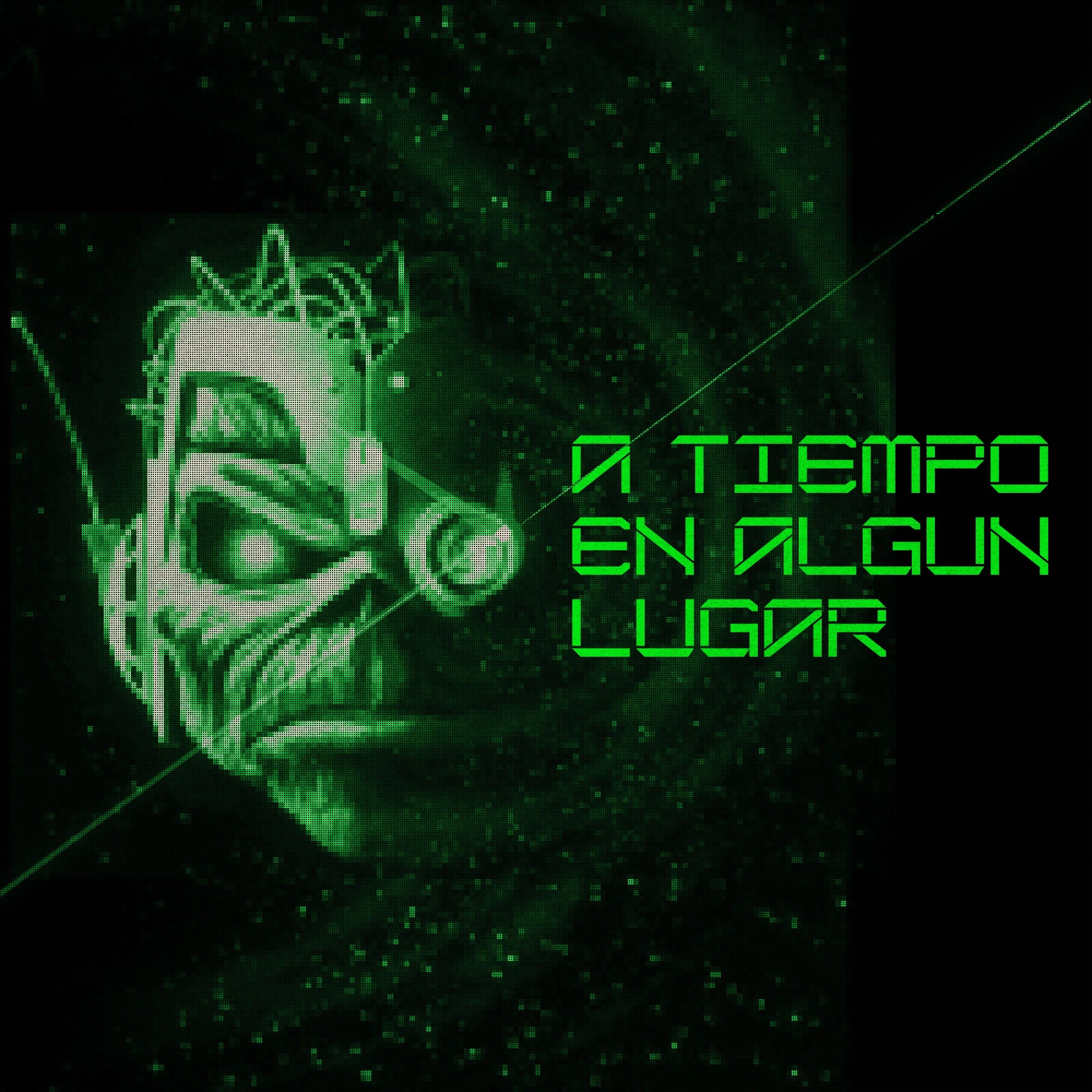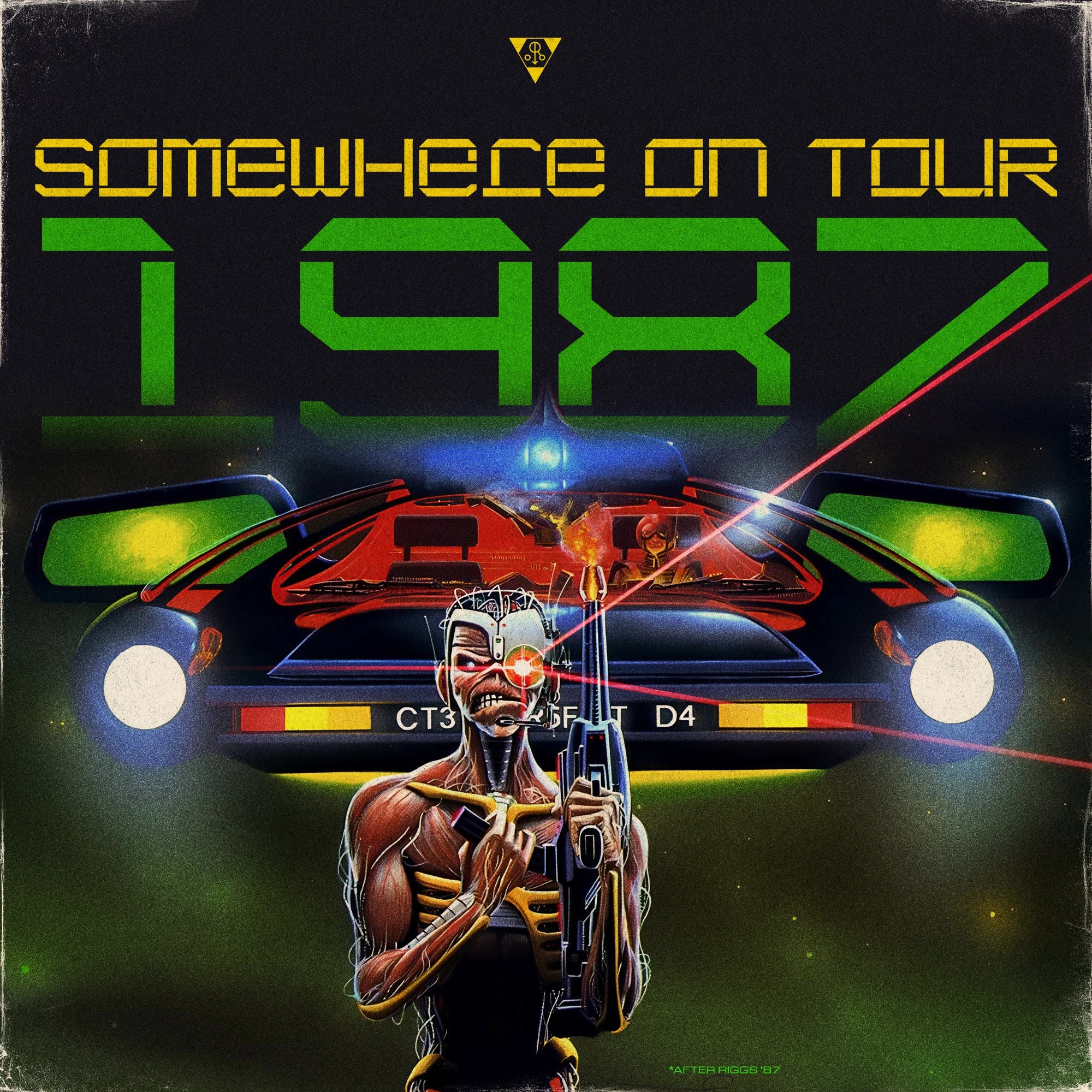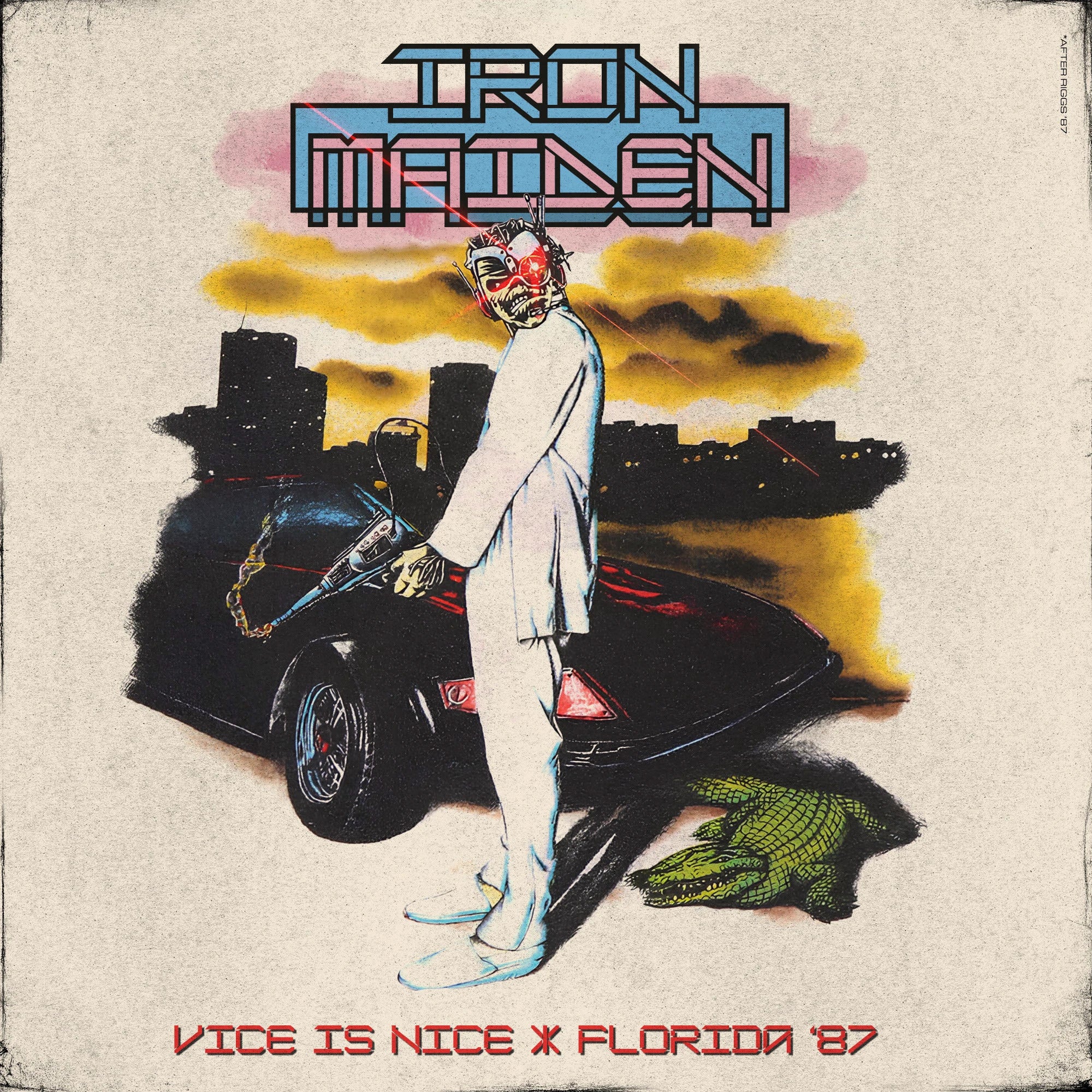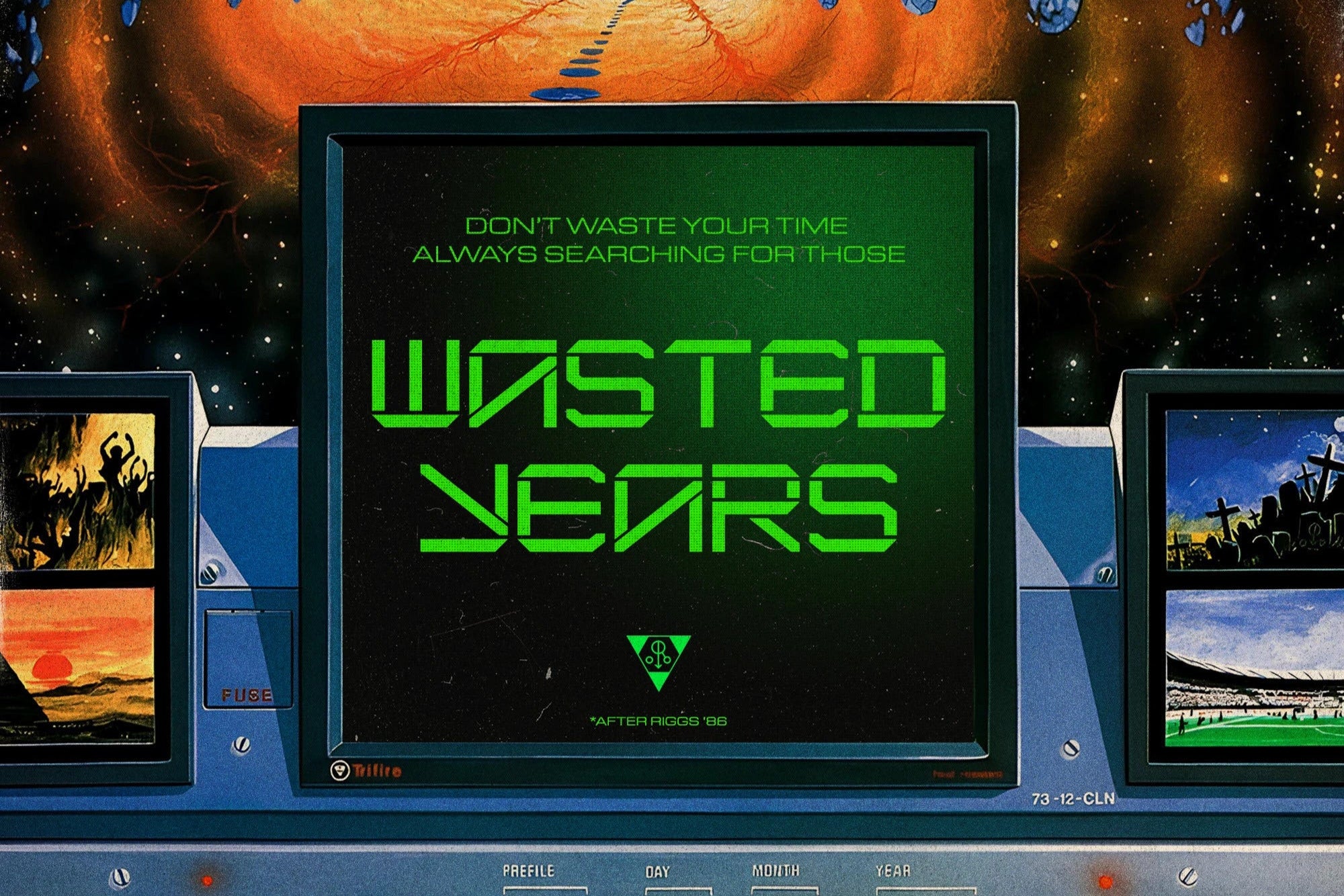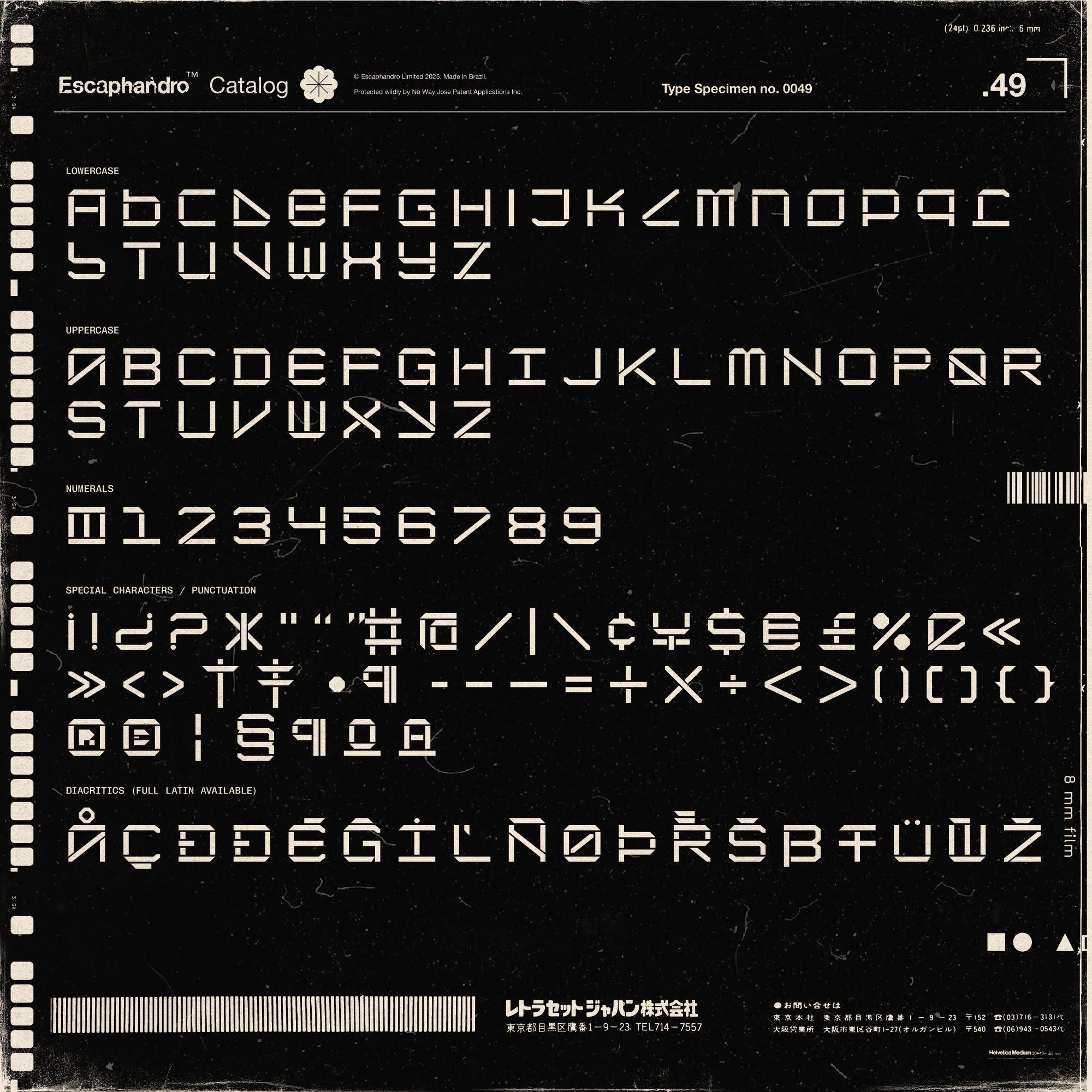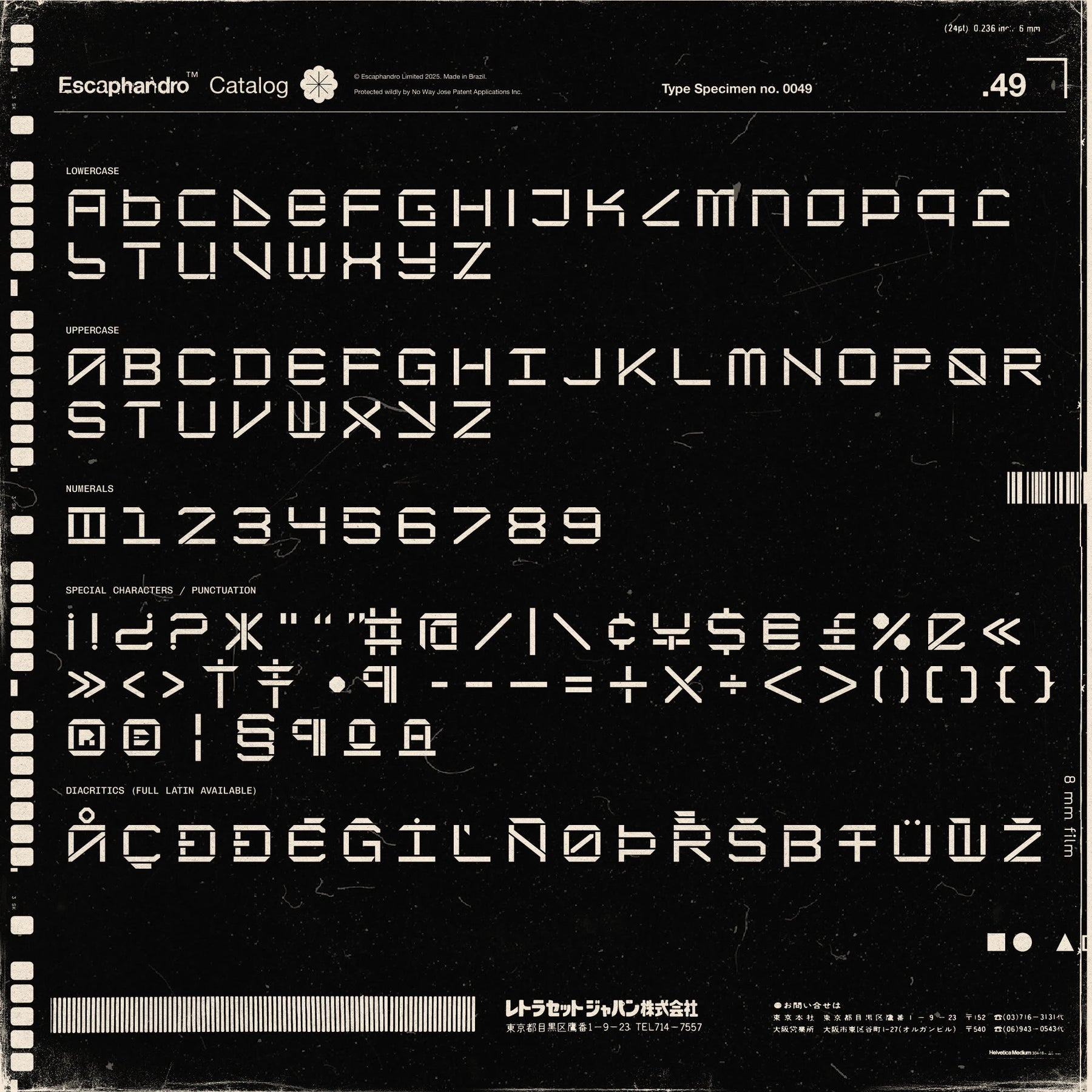
Wasted Years created by Rafael Nascimento is a typeface based on a lost lettering over an almost lost album cover. Searching for a very intriguing stencil typeface on an Argentinian version of the great 1986 hit singles by metal kings Iron Maiden, I took another creative approach in designing it "by eye" based on the few characters available as reference. Eventually it became a full digital font. It all became a fun tribute to one of my early design/music references and also a revival, or better said, resurrection of a lost typeface. All the retro-futuristic glory with a very metallic presence in one font \m/
Features • Unique stencil design inspired by a vintage record cover. • Full digital rendering from scarce character references. • Combines retro-futuristic aesthetics with a bold metallic feel.